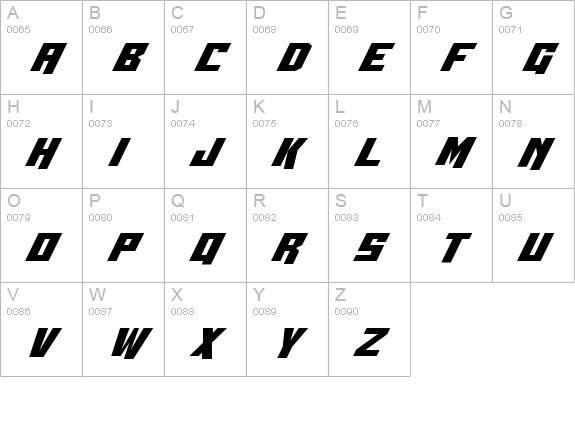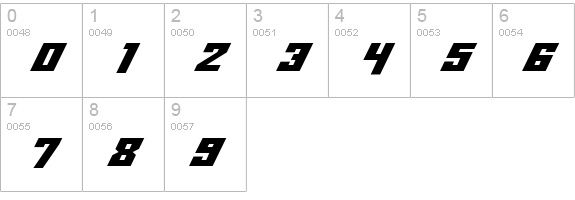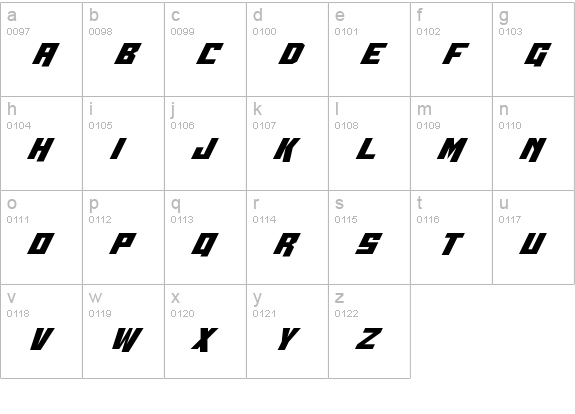
Introducing Whiskey Bravo Victor, a stunningly unique font that effortlessly combines elegance and boldness. With its intricate details and modern design, this font is sure to make a statement in any project. Whiskey Bravo Victor is the perfect choice for those seeking to add a touch of sophistication to their designs. Its sleek and stylish letterforms exude a sense of confidence and professionalism, making it ideal for branding, logos, invitations, and more. What sets Whiskey Bravo Victor apart is not only its striking appearance but also its versatility. Whether you're looking to create a luxurious wedding invitation or a high-end fashion magazine, this font has the ability to adapt and elevate any design. And the best part? Whiskey Bravo Victor is completely free! That's right, this exceptional font is freely available to download at FontsMarket.com. Now you can bring a touch of elegance to your projects without having to break the bank. So why wait? Embrace the beauty and grace of Whiskey Bravo Victor and give your designs the sophisticated edge they deserve. Download this font today and let your creativity soar to new heights.